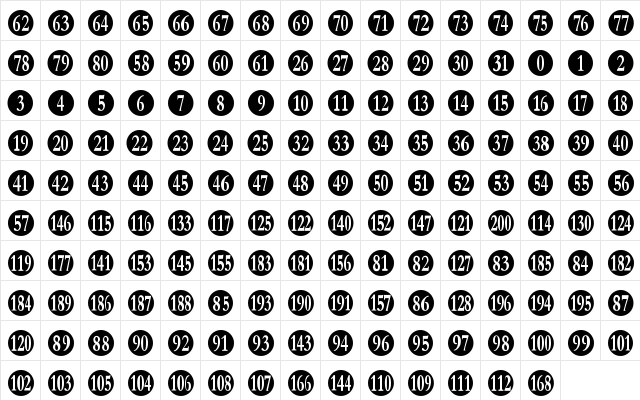
Numberpile Regular Font Preview
Numberpile Regular
Design Context for Numberpile Typeface
Numberpile takes a measured approach to typography — its balanced proportions and neutral character make it a reliable workhorse for both digital and print work.